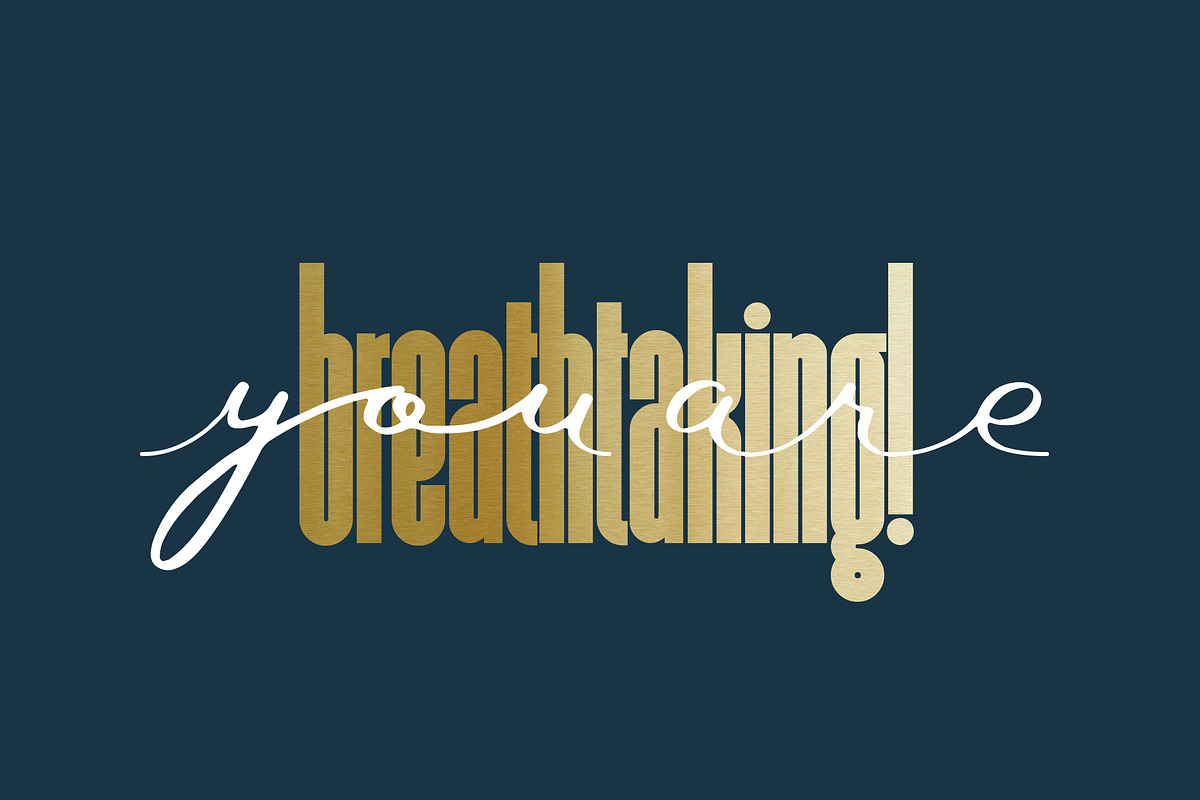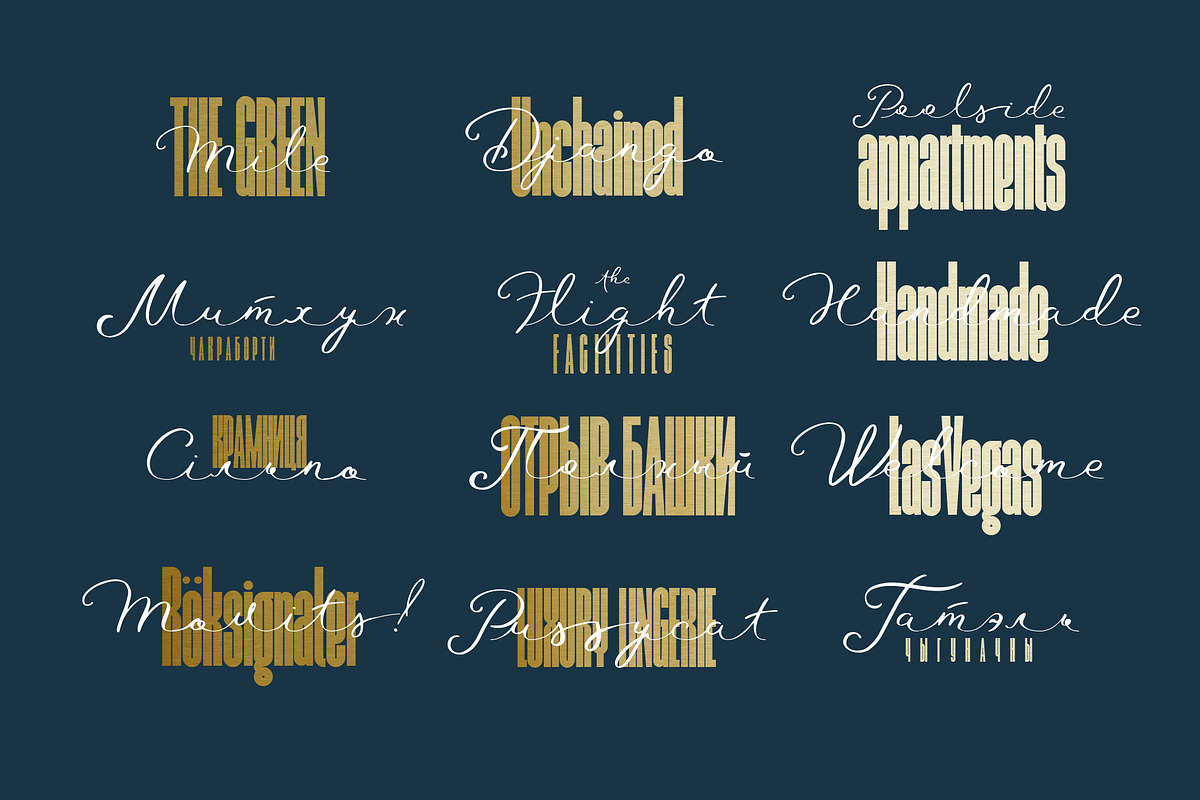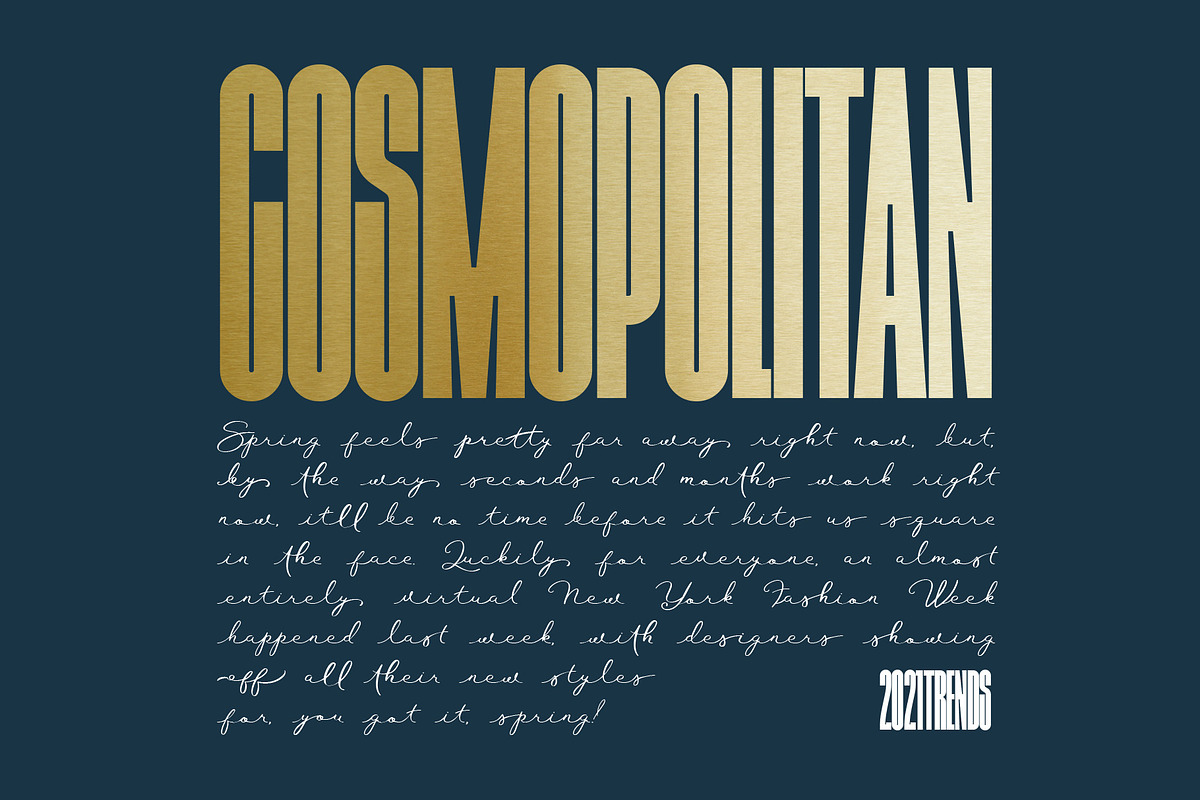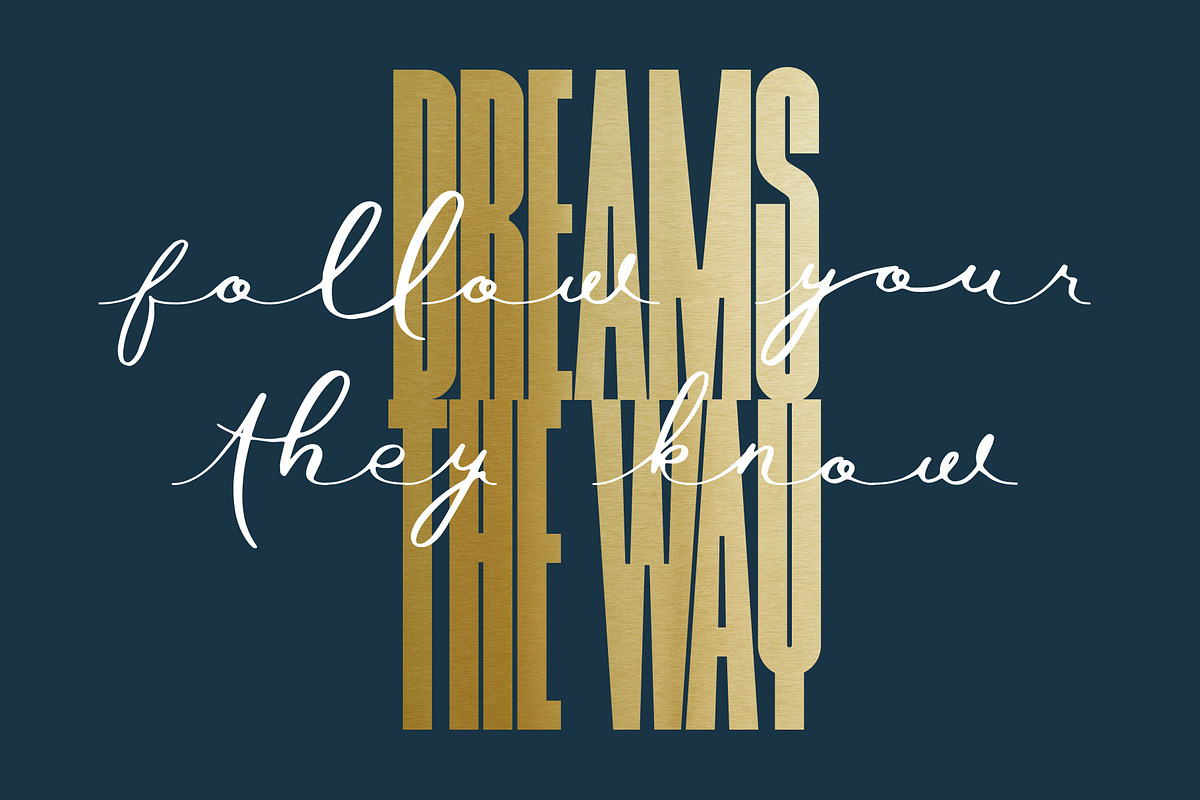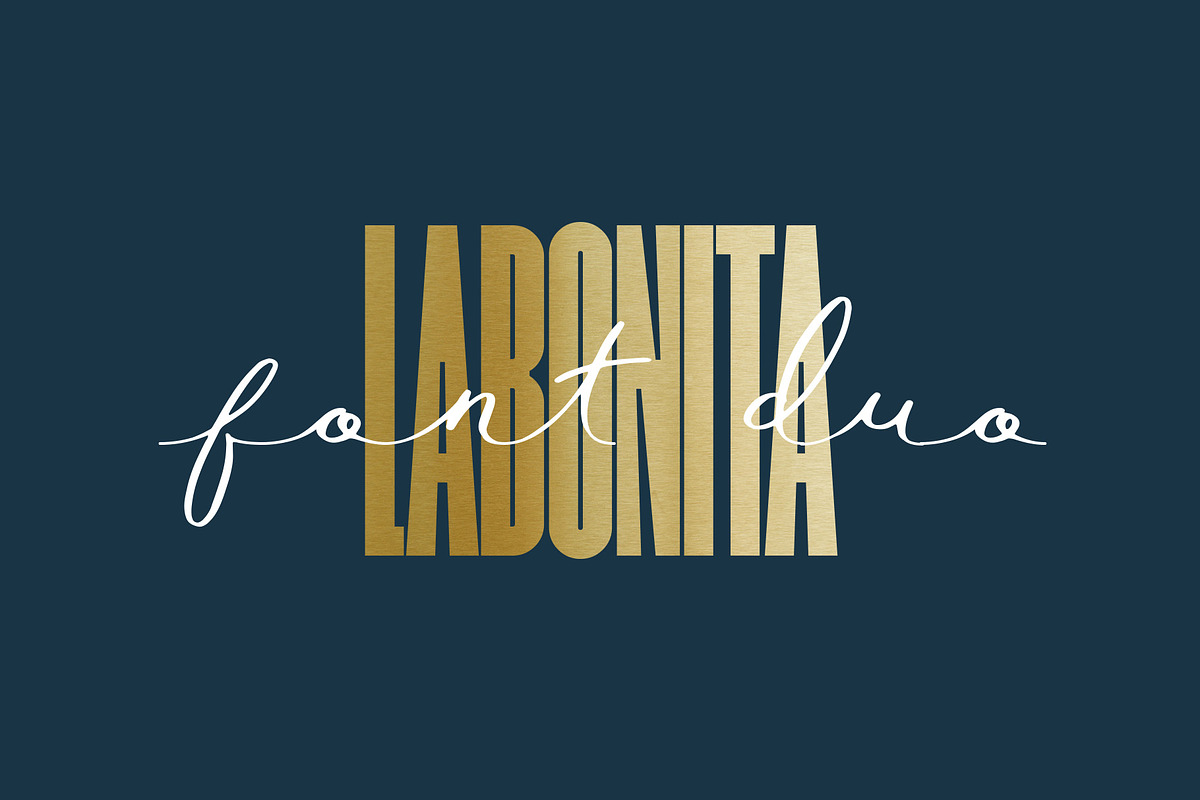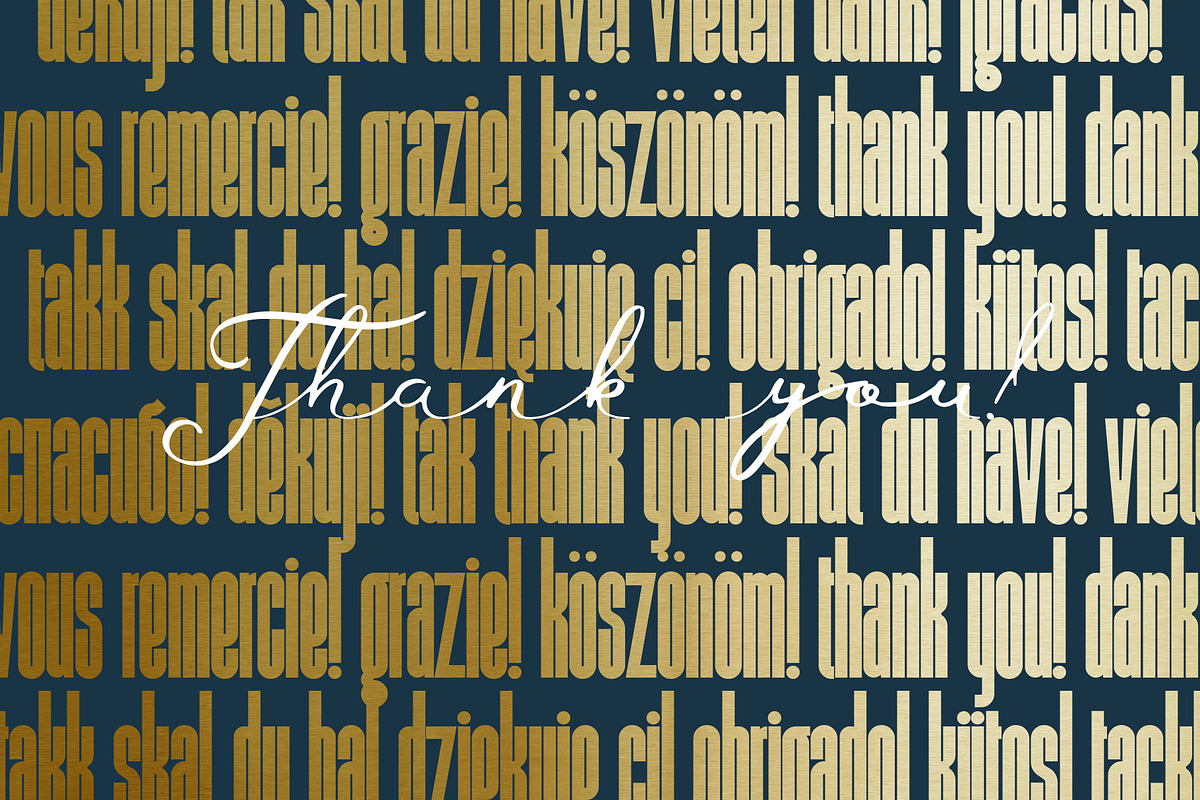
LaBonita
LaBonita font duo is a modern condenced grotesque and signature script.
It's great for titles, posters, logos. Condensed font allows to include more information in one line.
Font looks amazing as alone words and as full text blocks. Also it good for bright captions and unforgettable logos.